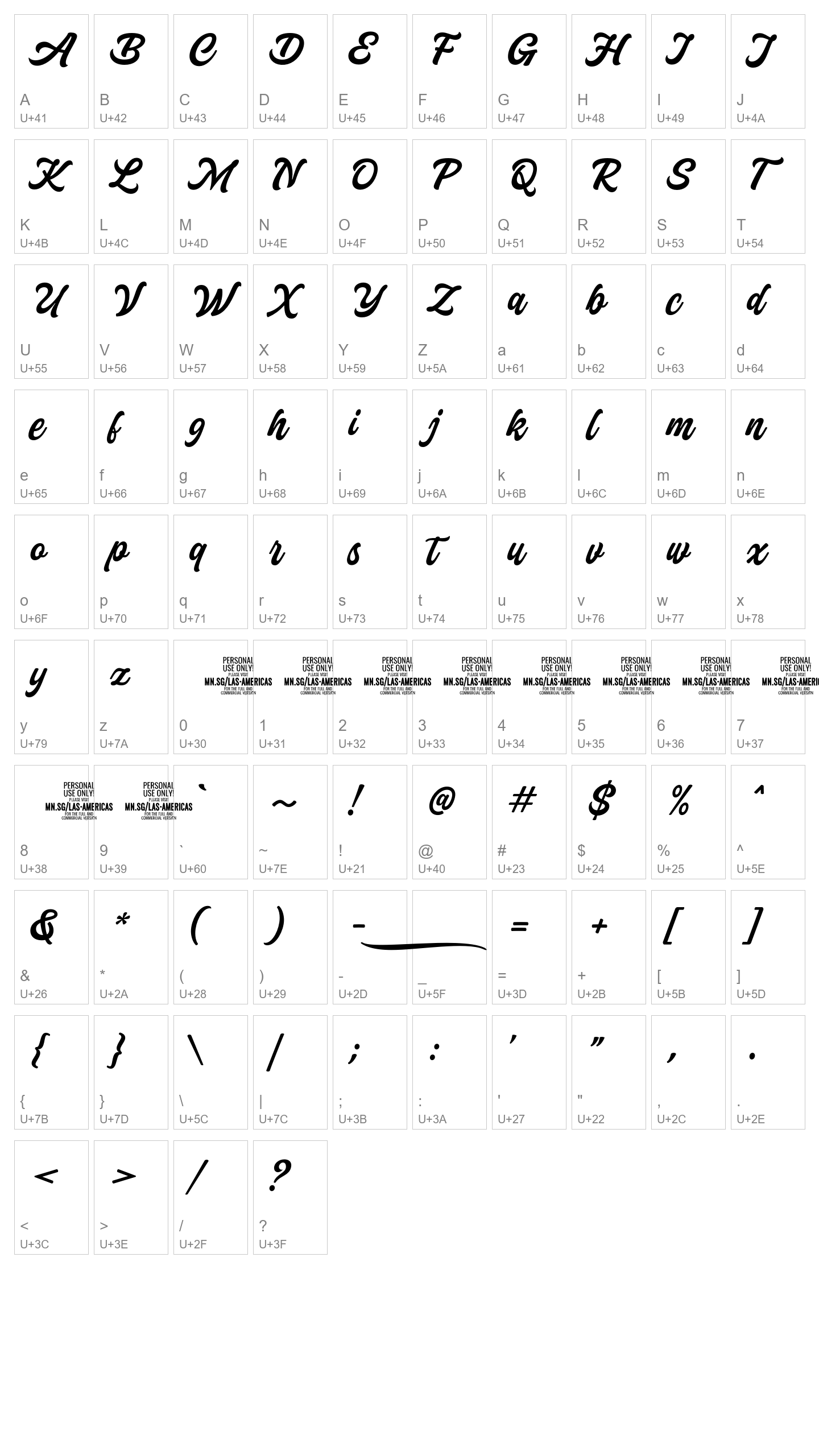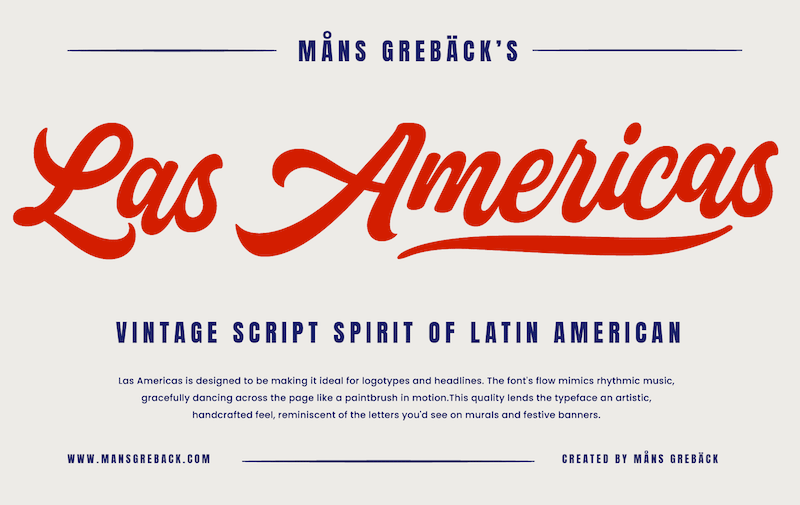
Las Americas
Las Americas is a bold script typeface that embodies a vibrant spirit.
Its heavy, bold strokes convey a sense of confidence
Use one or multiple underscores _ anywhere in the word to create a swash.
Examples: Amer_icana Oce___anic